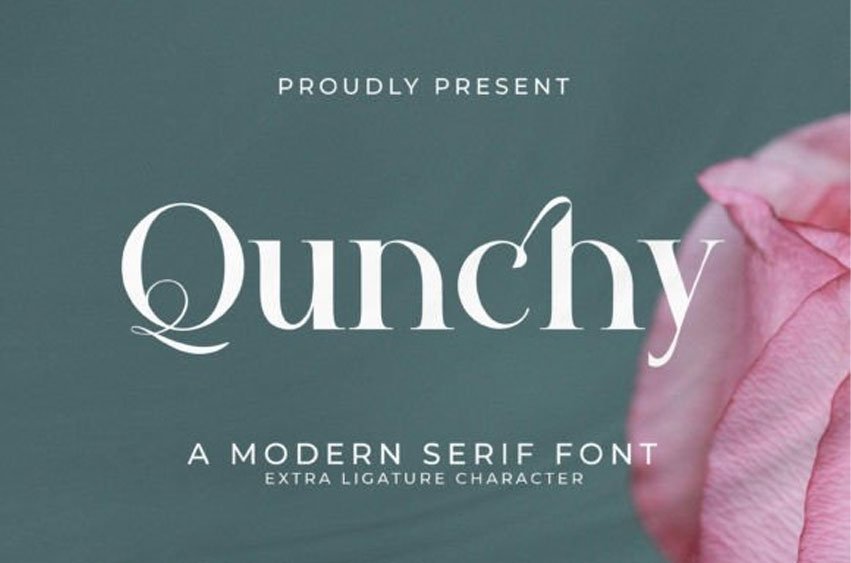
Qunchy Font is a modern and premium serif font that is perfect for any project like: logos, branding projects, homewares designs, product packaging, mugs, quotes, posters, shopping bags, t-shirts, covers books, business cards, invitation cards, greeting cards, labels, photography, watermarks, special events and all your other luxury projects that require a premium taste.
It is perfect for your upcoming projects.